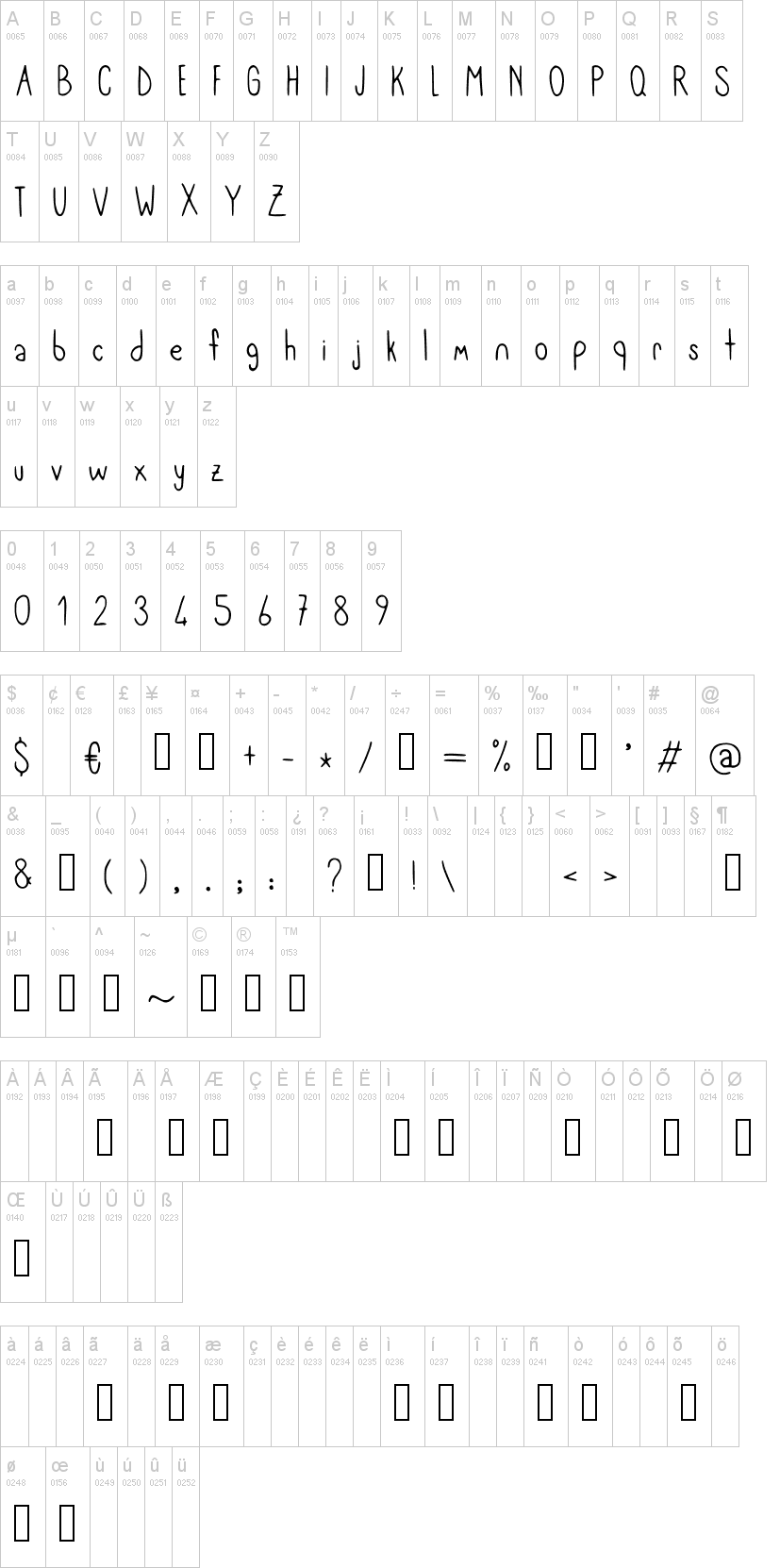
meryjane_v2.ttfNote of the authormeryjane is my first handwritten typeface. it's a free personal use & commercial use. created by mercan alper. hope you like it!